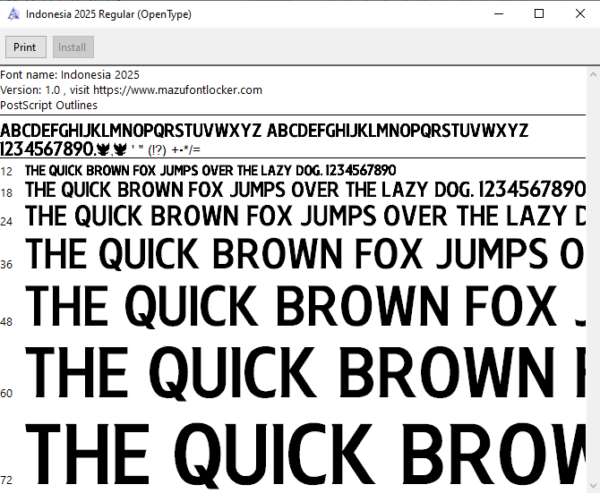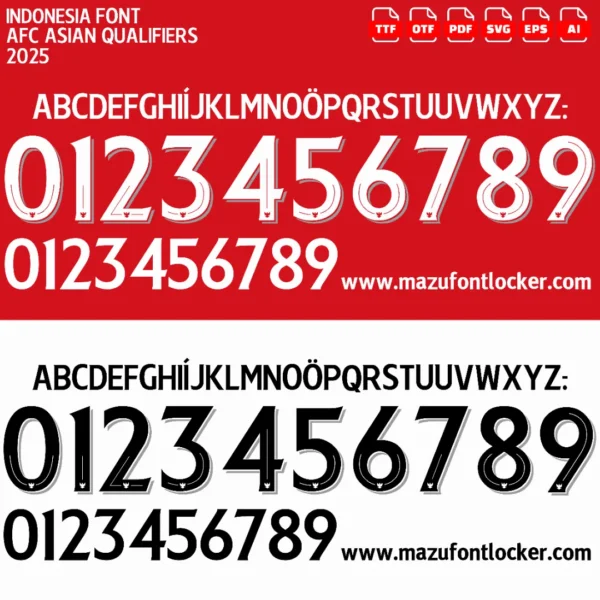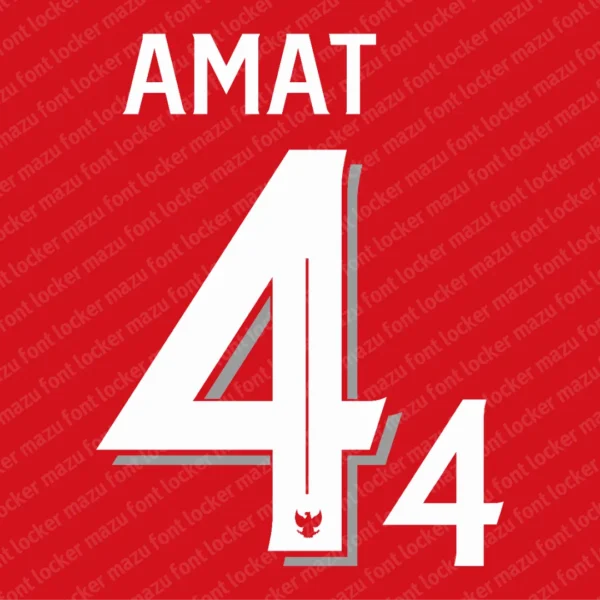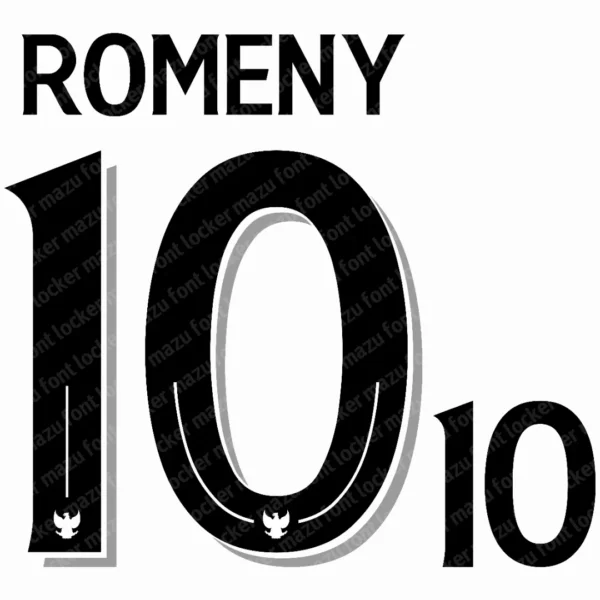
Indonesia 2025 Font Vector – Epic Garuda Pride Masterpiece
This premium font captures the commanding, majestic, iron-willed war-machine lettering that embodies the unstoppable Indonesian spirit — delivering raw archipelago fire, explosive national pride, unbreakable resilience, tactical dominance, legendary warrior grit, and the roaring passion of 270 million souls that made the entire world tremble in awe.
Indonesia 2025 Font Vector – Authentic Garuda Typeface
The Indonesia 2025 Font Vector is a premium typeface that accurately recreates the official match lettering worn by the Indonesia national team during the 2025 football campaign. This high-quality vector font kit captures the bold, dynamic, and modern typography that represents the pride, passion, and rich football heritage of the Garuda squad.
Designed for professional designers and passionate Indonesia fans, the Indonesia 2025 Font Vector delivers perfect authenticity for creating realistic jersey mockups, fan merchandise, matchday posters, social media graphics, and Indonesian football content. It pairs beautifully with the iconic red, white, and green kit featuring the famous Garuda crest.
This font stands out because of its sharp vector precision and strong national identity. Every letter and number is crafted to match the exact style used on the players’ shirts during the 2025 campaign. Whether you are making realistic kit templates or exciting Garuda content, the Indonesia 2025 Font Vector gives your designs that authentic Indonesia look.
The letterforms in the Indonesia 2025 Font Vector are tall, bold, and highly readable. The strokes have a strong, clean weight with excellent edge definition that looks powerful on the back of jerseys while maintaining classic Southeast Asian spirit and modern strength.
• Full uppercase A–Z and numbers 0–9 in authentic Indonesia 2025 style
Indonesia 2025 Football Campaign
The 2025 campaign saw the Garuda squad return with renewed energy and determination on the international stage. Indonesia delivered passionate and disciplined performances, showcasing technical skill, tactical organization, and the fighting spirit that defines Southeast Asian football.
Veteran stars and emerging talents from the Liga 1 and diaspora united to create memorable moments for the nation. The campaign further strengthened Indonesia’s growing reputation as a competitive force in AFC and world football.